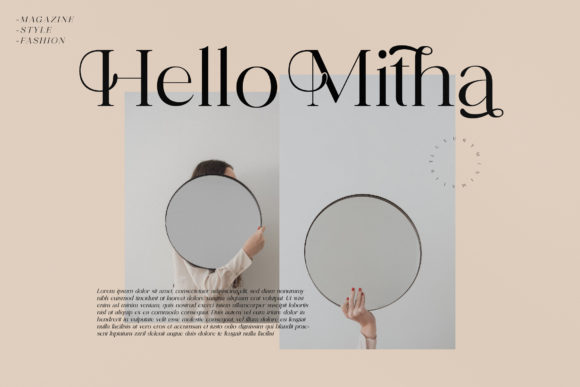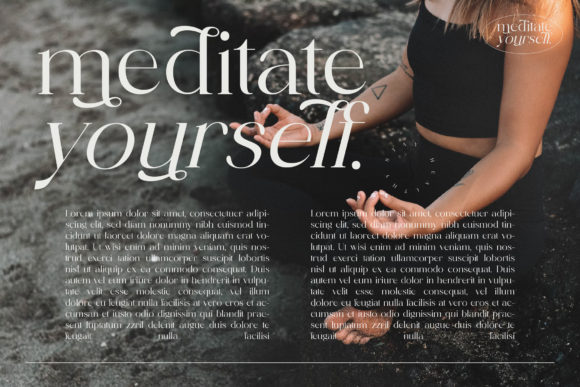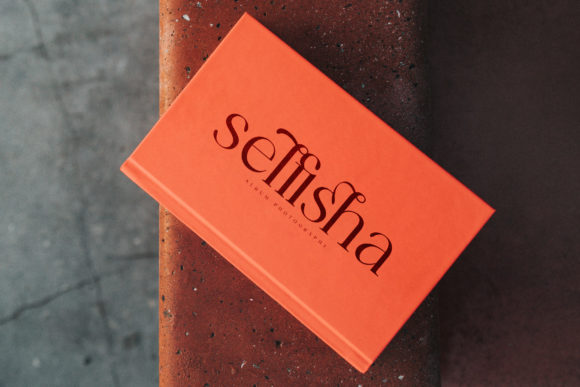
Introduction to Mafisha Font
Proudly present Mafisha Typeface , created by Storytype, A serif modern and classic typeface that his own unique style & modern look.
This typeface is perfect for an elegant & luxury logo, book or movie title design, fashion brand, magazine, clothes, lettering, quotes, and so much more This font is PUA encoded which means you can access all of the amazing glyphs and ligatures with ease.
Why Choose Mafisha Font?
Mafisha Font offers exceptional quality and versatility, making it a valuable addition to your design toolkit. Whether you’re creating for personal projects or commercial use, Mafisha Font delivers professional results.